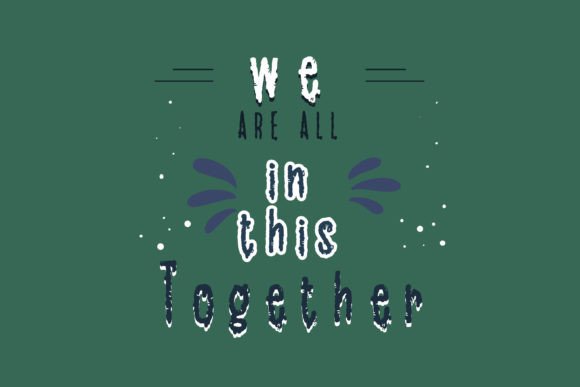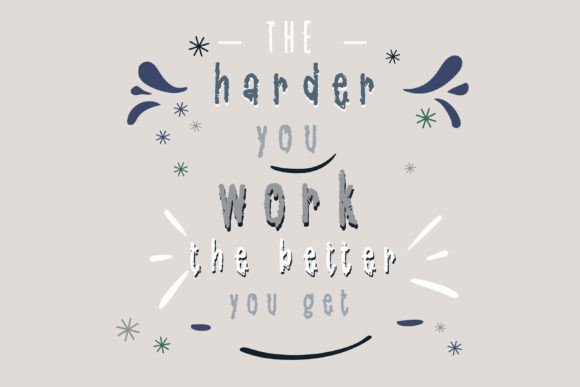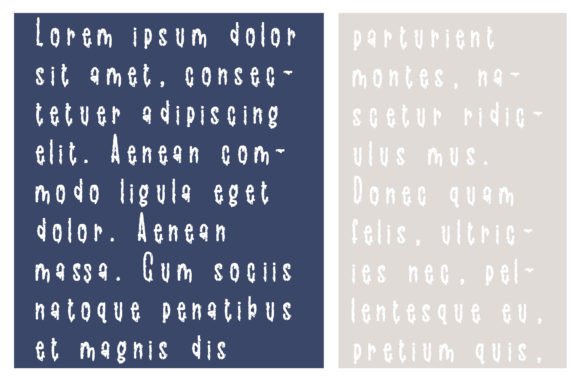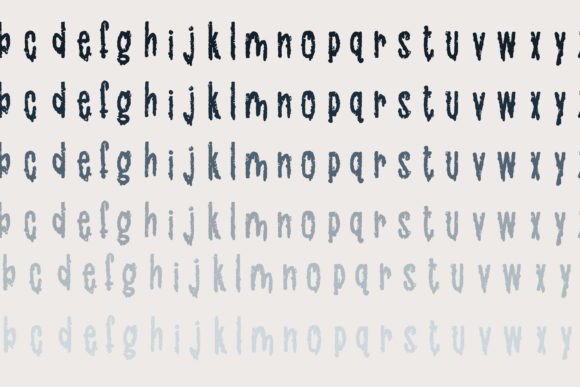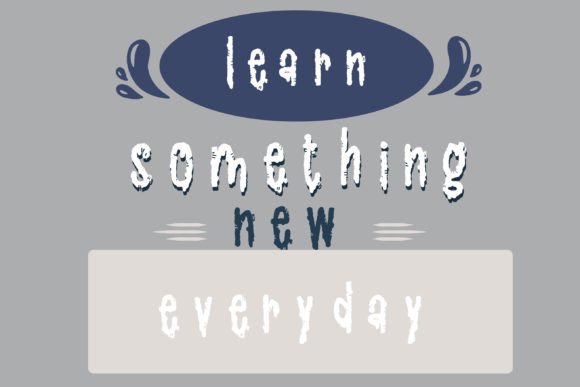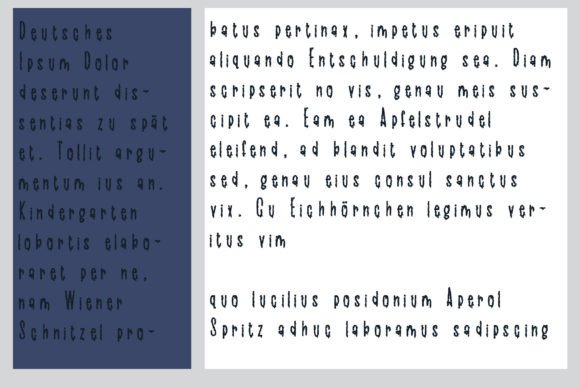
Get Ready for a Spooky Good Time with Beanboos and Ooze Font
As a designer, there’s nothing quite like the thrill of brainstorming ideas for a Halloween project. The spooky season is just around the corner, and you’re itching to create something that will leave a lasting impression. You’re browsing through font collections, searching for the perfect typeface to capture the essence of the season, when you stumble upon it – Beanboos and Ooze Font.
This delightfully playful typeface is designed to bring a touch of Halloween magic to your projects. With its whimsical and eerie letterforms, it’s the perfect addition to party invitations, posters, and spooky decorations. As a designer, you know how valuable a great font can be in elevating your work and setting it apart from the rest. Beanboos and Ooze Font is no exception, offering a unique and eye-catching look that’s sure to impress.
- Unique Characteristics: Beanboos and Ooze Font features a unique, playful design with a mix of bold and cursive elements, making it perfect for creative projects and branding.
Beanboos and Ooze Font Review
Overall, I’m impressed with the unique aesthetic of the Beanboos and Ooze font. It’s a great choice for anyone looking to add some whimsy and personality to their design projects. ✨ The combination of hand-drawn elements and subtle texture adds a lot of visual interest.
The font is also quite versatile and can be used in a variety of contexts, from children’s book illustrations to digital product design. It’s a great choice for anyone who wants to add a touch of playfulness to their work.
- Unique aesthetic that adds visual interest ✨
- Highly versatile and can be used in a variety of contexts
- Easy to read and use in both print and digital formats
- May not be suitable for corporate or formal branding projects ⚠️
- Lacks a full character set, which may limit its use in certain languages
Overall, I think the Beanboos and Ooze font is a great choice for designers who want to add a touch of personality to their work. While it may have some limitations, its unique aesthetic and versatility make it a great addition to any design project.
Beanboos and Ooze Font is a great choice for:
- Children’s books and educational materials.
- Artistic and creative projects.
- Designs that require a playful and whimsical feel.
For the best results, use the font in combination with other creative elements, such as illustrations and graphics.
Alternatives to Beanboos and Ooze Font
Great Vibes Font is a beautiful, handwritten font suitable for creative projects, such as invitations, greeting cards, and posters. It’s ideal for adding a personal touch to designs. In comparison to Beanboos and Ooze Font, Great Vibes Font has a more elegant and refined feel, making it suitable for a wider range of applications.
Pacifico Font is a elegant, cursive font that’s perfect for projects that require a touch of sophistication, such as wedding invitations, menus, and luxury brands. It’s more formal than Beanboos and Ooze Font, making it suitable for high-end designs. However, Pacifico Font may lack the playfulness and whimsy of Beanboos and Ooze Font.